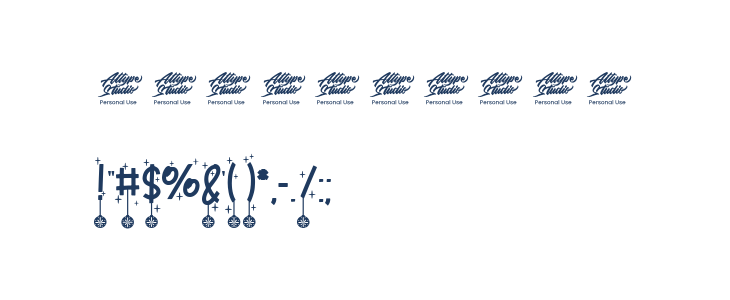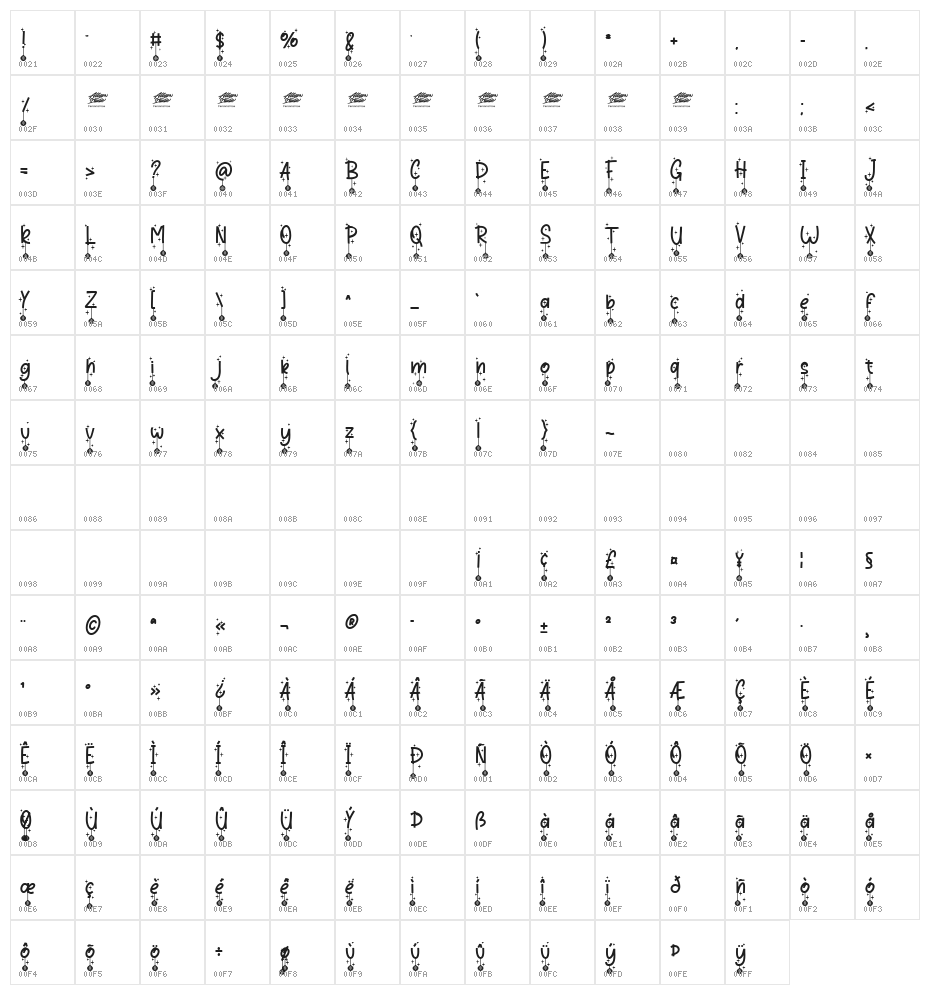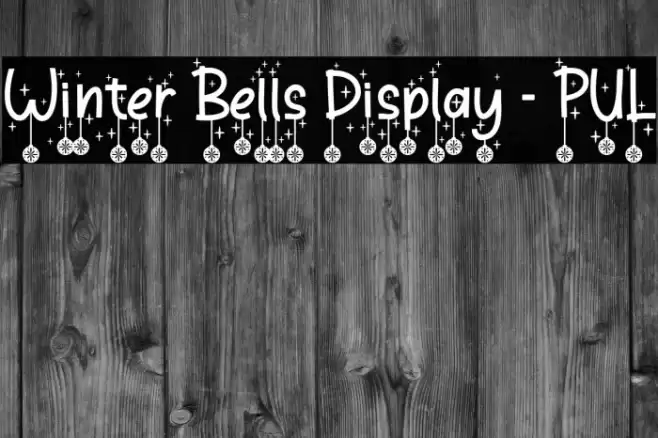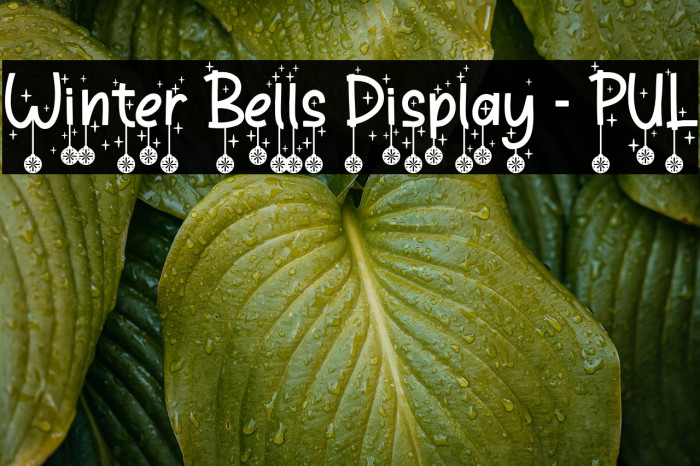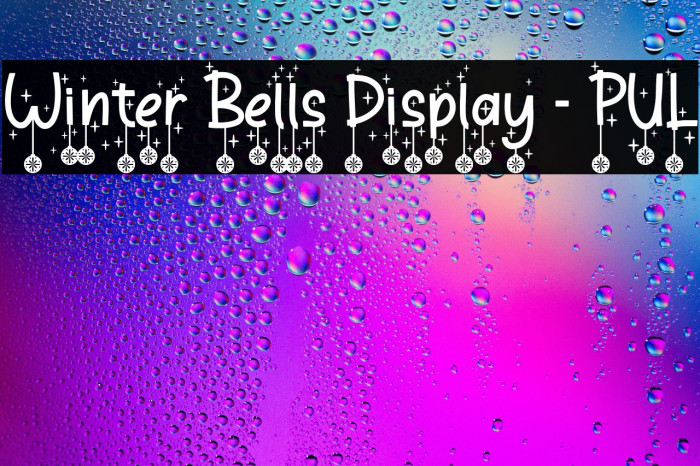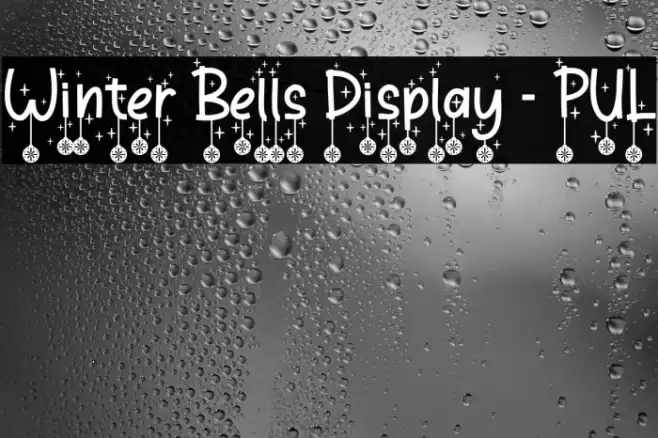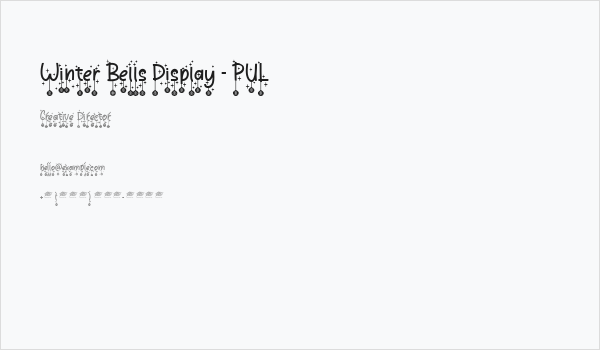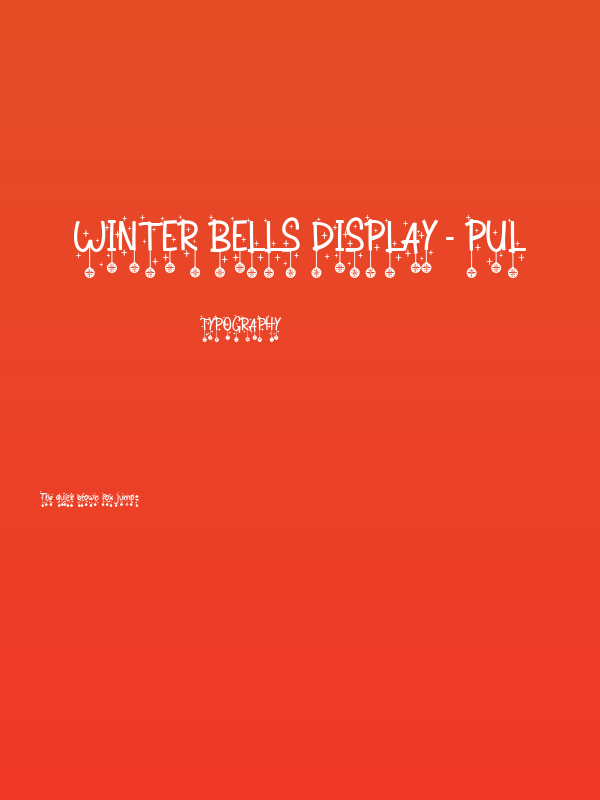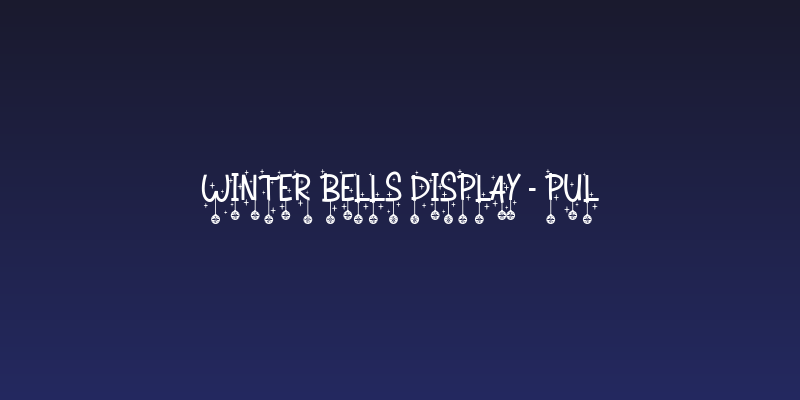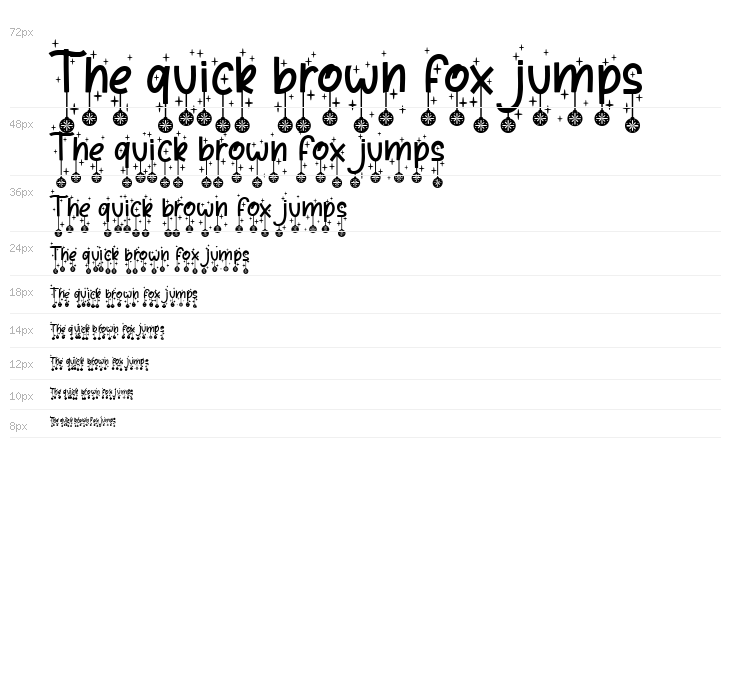
Winter Bells Display - PUL Font
Winter Bells Display - PUL Description
This whimsical and festive font features playful, decorative elements that evoke a sense of holiday cheer. Each character is adorned with hanging ornaments and star-like accents, creating a unique and eye-catching design. The letters are bold and slightly rounded, giving them a friendly and approachable appearance. The overall style is both fun and elegant, making it perfect for seasonal projects. The font maintains good legibility despite its decorative nature, ensuring that it can be used effectively in various design contexts.
| Proposed Projects | Ideal for holiday cards, festive banners, seasonal advertisements, and decorative posters. |